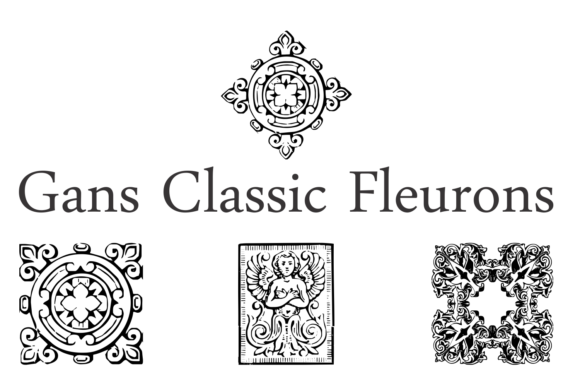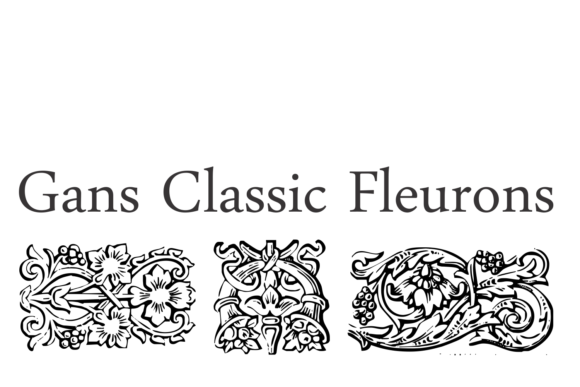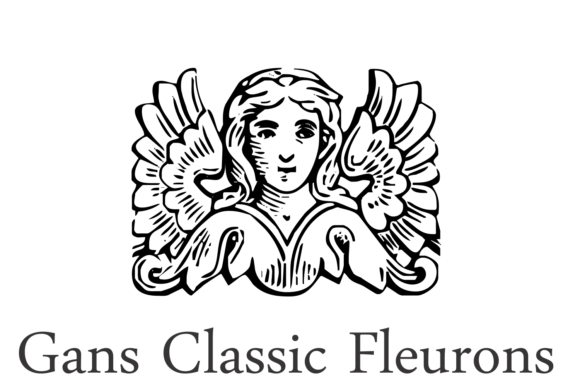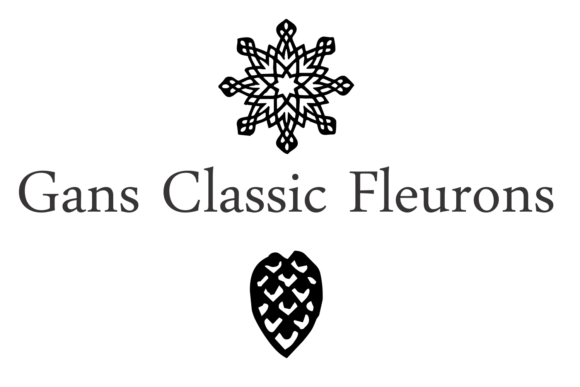
Gans Classic Fleurons Font
About Gans Classic Fleurons Font
The Gans Classic Fleurons is a dingbat font that offers a wide variety of decorative flourishes and ornaments. These elements can be used to add a touch of vintage and antique charm to your designs. Here are some ways you can make use of this font:
1. Typography Enhancements: Incorporate the flourishes and ornaments as decorative elements around your typography. They can be used to embellish titles, headings, or initials, giving them an elegant and vintage-inspired look.
2. Borders and Dividers: Use the flourishes and ornaments to create decorative borders or dividers to separate sections of your design. This can be particularly effective in posters, invitations, or certificates, where you want to add a touch of sophistication.
3. Frames and Labels: Create unique frames or labels by combining the flourishes and ornaments. These can be used to highlight important information, such as product names, event details, or special offers.
4. Background Patterns: Experiment with repeating patterns using the flourishes and ornaments to create intricate and visually appealing backgrounds for your designs. This can be especially useful for stationery, packaging, or website backgrounds.
5. Vintage-inspired Designs: The Gans Classic Fleurons font is well-suited for creating designs with a vintage or antique aesthetic. Incorporate the flourishes and ornaments into illustrations, logos, or branding elements to evoke a sense of nostalgia and timeless elegance.
Remember to adjust the size, position, and color of the flourishes and ornaments to achieve the desired effect in your designs. Explore the different styles and combinations available in the font to add a unique and sophisticated touch to your projects.
Enjoy experimenting with the Gans Classic Fleurons font and have fun creating vintage-inspired designs!